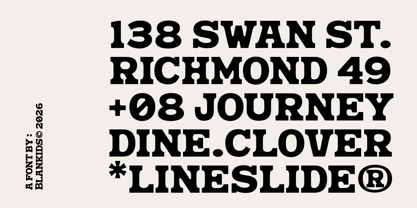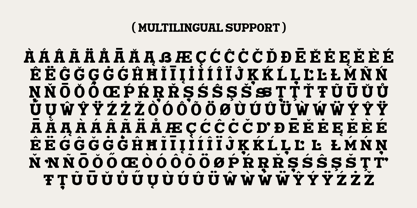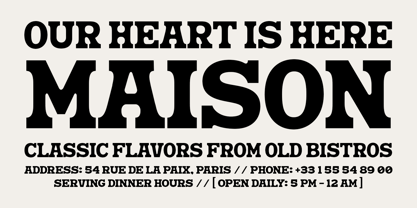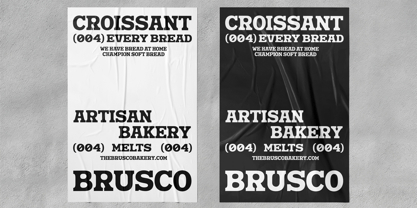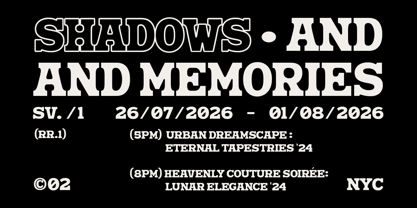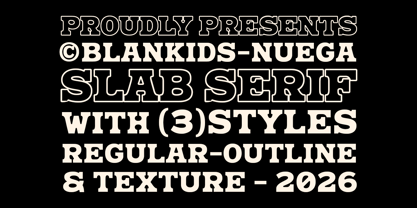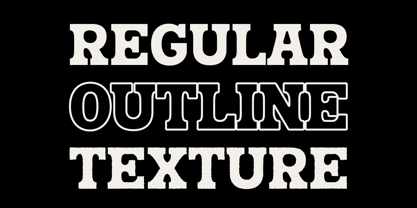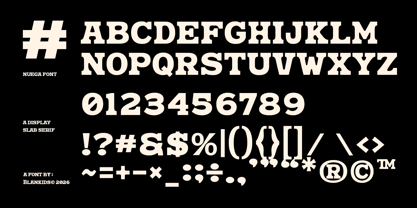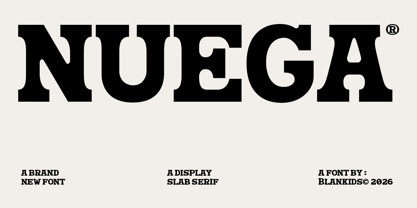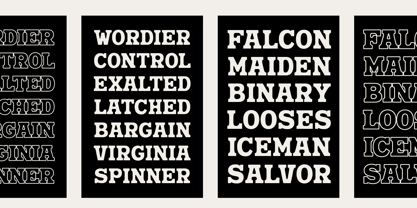
Nuega
par Blankids
La famille de polices Nuega a été conçue par Bangkit Tri Setiadi et publiée par Blankids. Nuega contient 3 styles et options de package familial. En savoir plus sur cette famille
Nuega – Bold Slab Serif Font
Meet Nuega, a bold and impactful display slab serif font designed to make a strong visual statement. Nuega combines classic aesthetics with a modern, daring edge, making it the perfect choice for designs that demand attention.
Featuring solid, heavy letterforms and unique serif details, this font is ideal for magazine headlines, art posters, brand identities, product packaging, website headers, and retro-modern fashion or editorial designs.